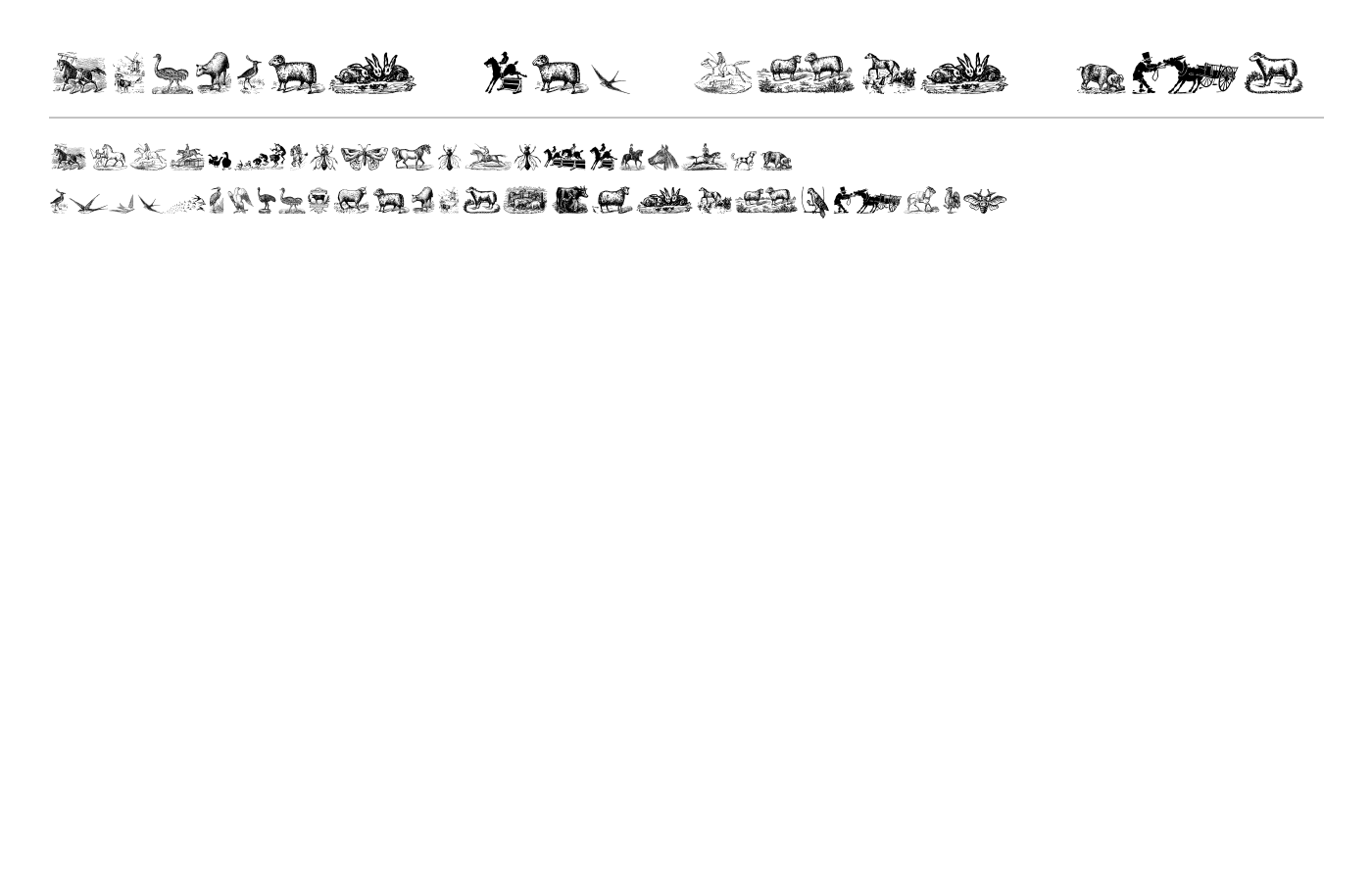
Animals Old Cuts Two is a decorative display font featuring finely detailed vintage-style animal illustrations rather than traditional letterforms. Its intricate black-and-white engravings evoke an old-world, nostalgic charm perfect for adding a whimsical, rustic touch to branding, packaging, or editorial projects. This font shines in creative uses where visual storytelling and antique aesthetics are desired.
Animals Old Cuts Two Font
About Animals Old Cuts Two Font
| Font family | Animals Old Cuts Two Font |